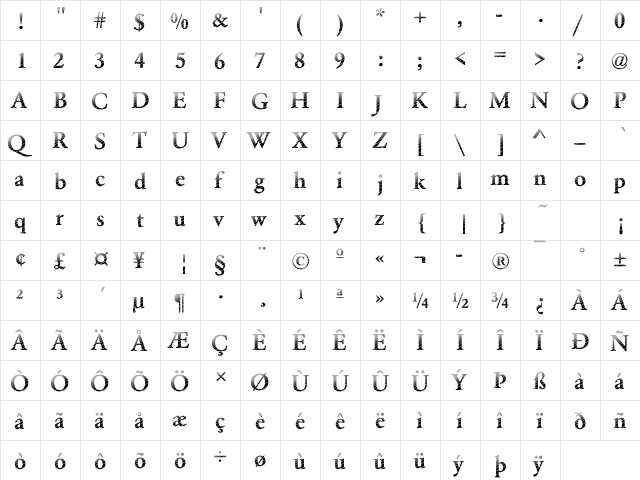
DTCGaramondM20 Regular
Design Context for DTCGaramondM20 Typeface
DTCGaramondM20 offers clean, dependable letterforms without strong stylistic allegiance, making it a practical choice for designers who need flexibility.
Pro Tip: Use DTCGaramondM20 in both headline and body roles to test its range before committing to a single application.